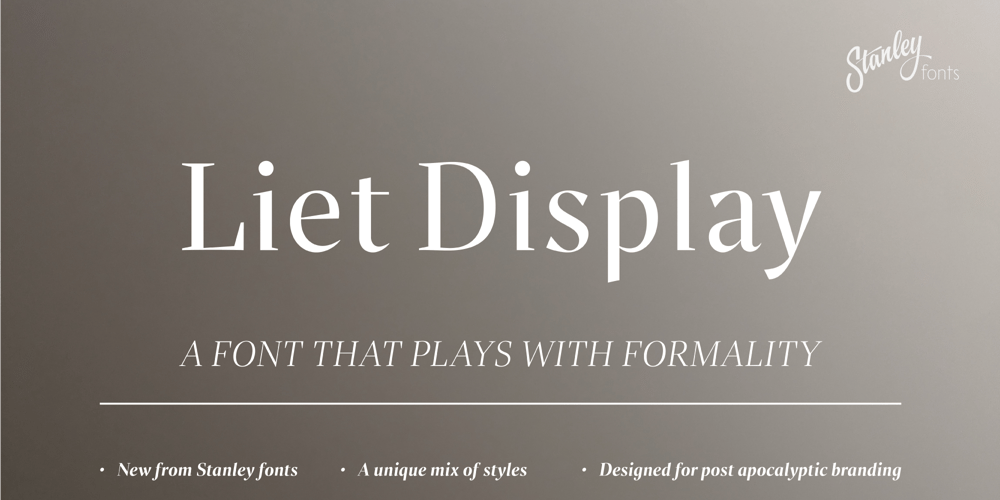
Liet Display Font Family was designed by Dominic Stanley and published by Stanley fonts. Liet Display contains 10 styles and family package options. Casual and Elegant. Liet Display© is an upright italic that plays with formality by subtly exploring the spaces between serif, sans-serif and italic styles. I recommend Liet Display© for post-apocalyptic packaging, branding, and editorial design.Dominic